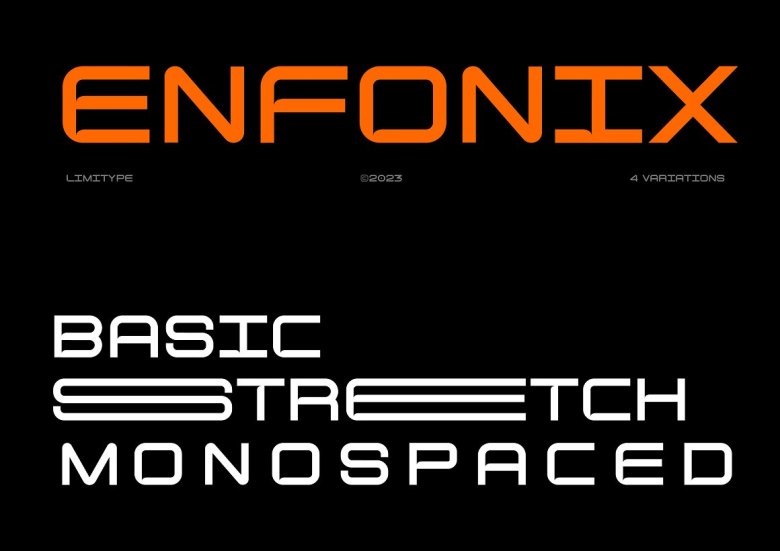
Enfonix Font
Enfonix is a contemporary sans-display font designed for posters, logos and magazines that features dynamic shapes. Available with three width sizes and two typeface styles (Std and Pro), Enfonix may also be downloaded monospaced style font.
Enfonix Sans Display Font